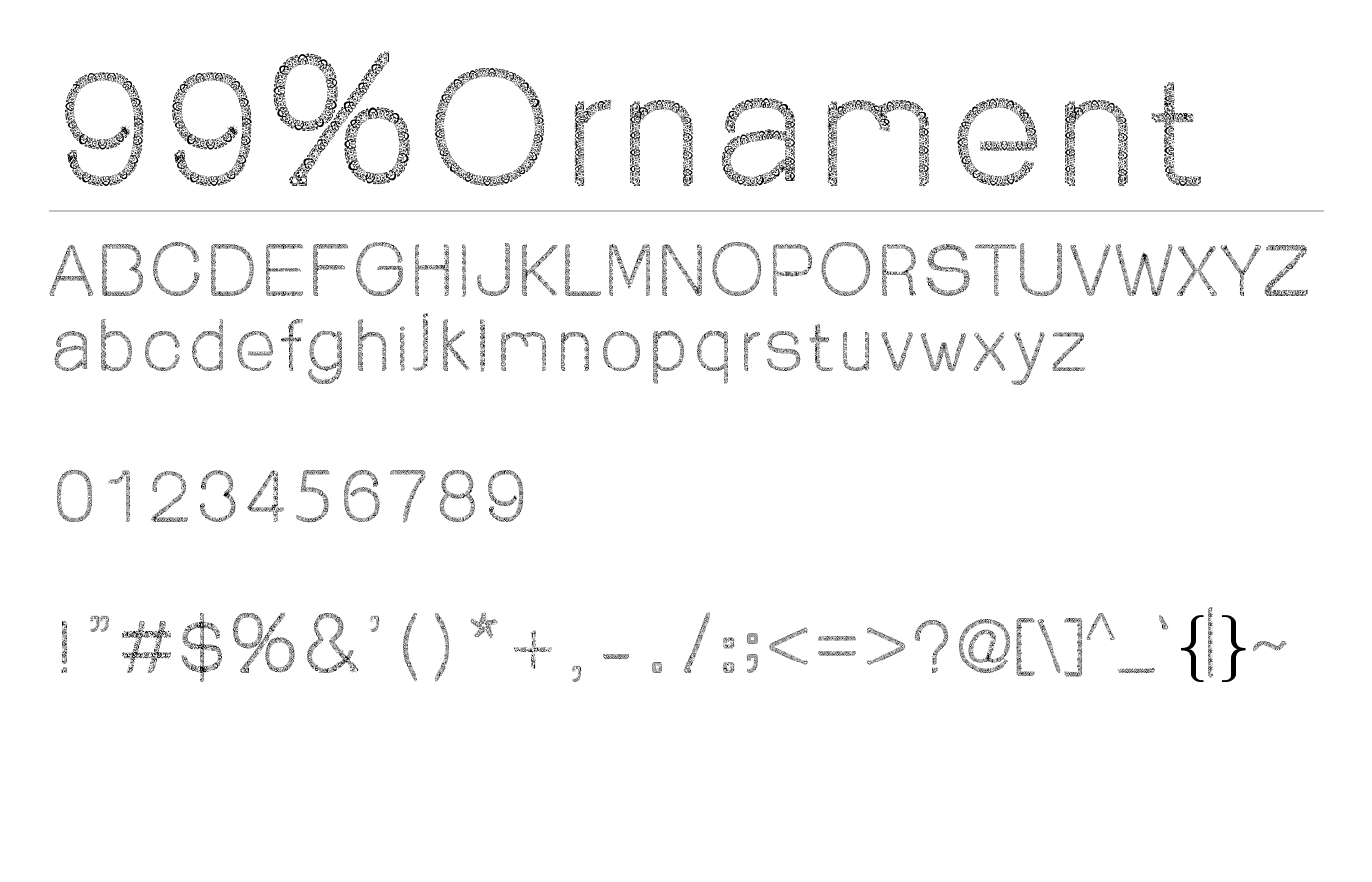
99%Ornament is a delicate sans serif font characterized by its intricate, ornamental texture that fills each letterform, creating a unique blend of modern simplicity and artistic detail. Its light weight and normal width combined with a clean, geometric structure make it perfect for stylish, decorative uses where refined elegance and subtle complexity are desired. This font works beautifully for branding, invitations, and headlines where a sophisticated yet distinctive visual impact is needed.
99%Ornament Font
About 99%Ornament Font
| Font family | 99%Ornament Font |
| Designer | Habib Shaikh |